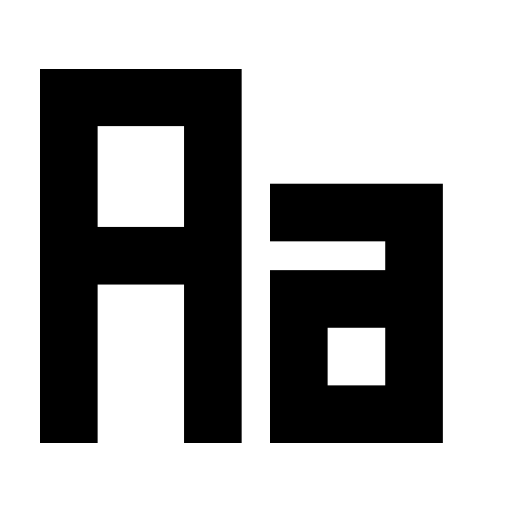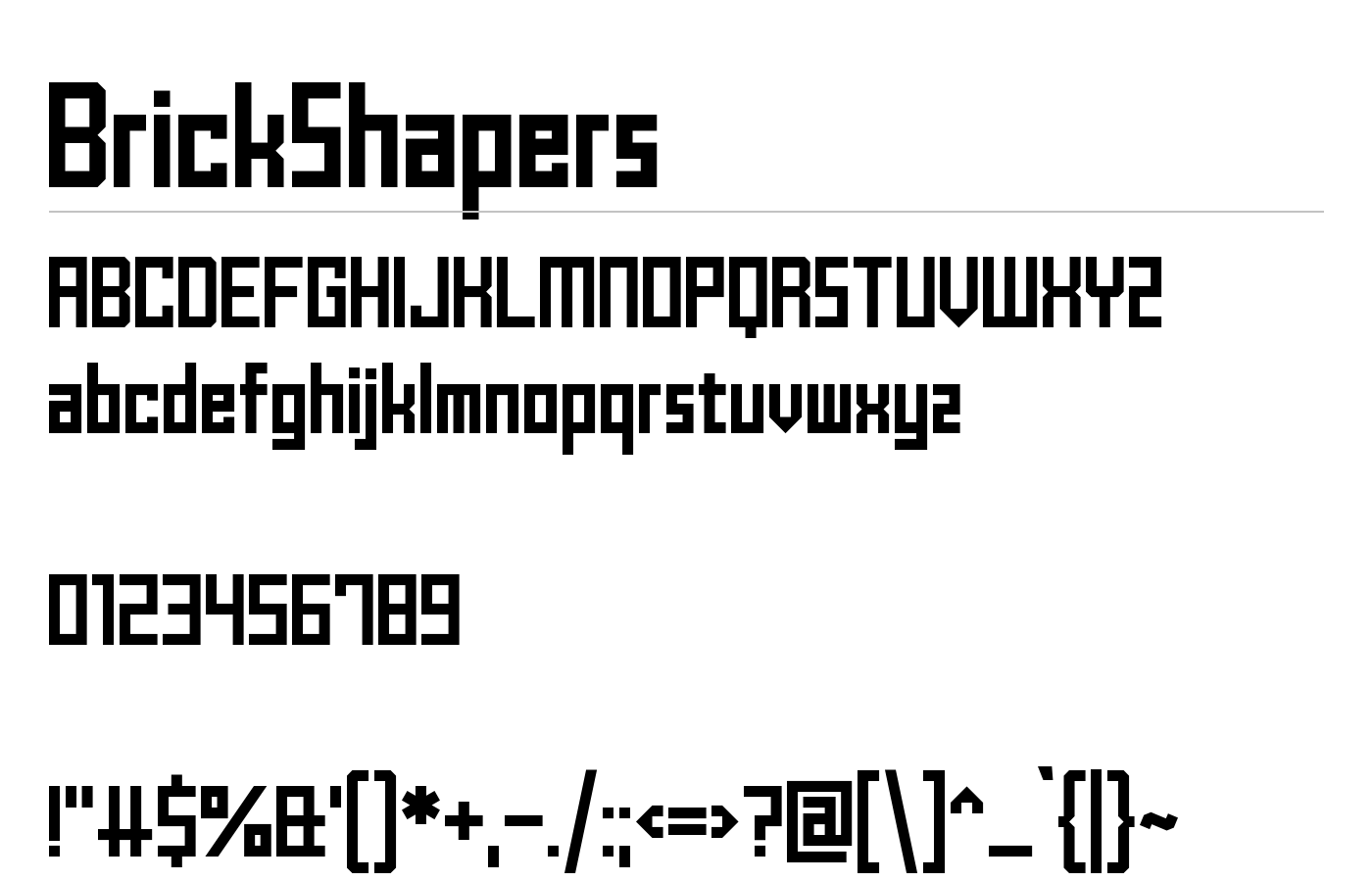
BrickShapers is a bold, geometric sans serif font with a strong block-like structure that evokes a modern, digital or industrial feel. Its tall, narrow letters feature sharp angles and uniform stroke weight, creating a compact and technical appearance ideal for tech, gaming, or urban branding. This font works best for striking headlines, logos, and designs where a futuristic and constructed vibe is desired.